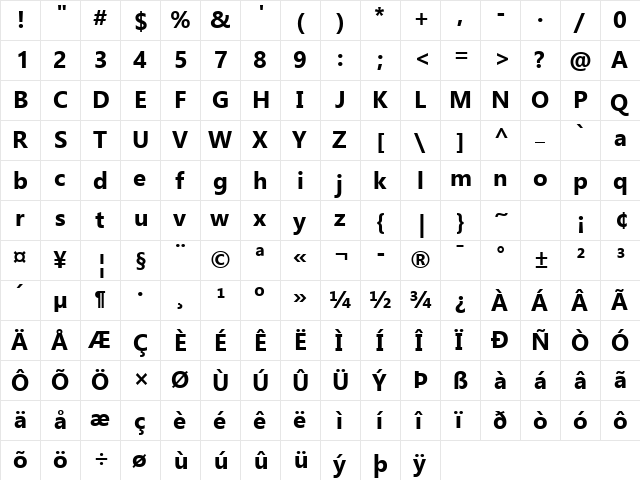
Gadugi Bold
Design Context for Gadugi Typeface
Gadugi takes a measured approach to typography — its balanced proportions and neutral character make it a reliable workhorse for both digital and print work. The heavy weight commands attention and anchors typographic hierarchies.